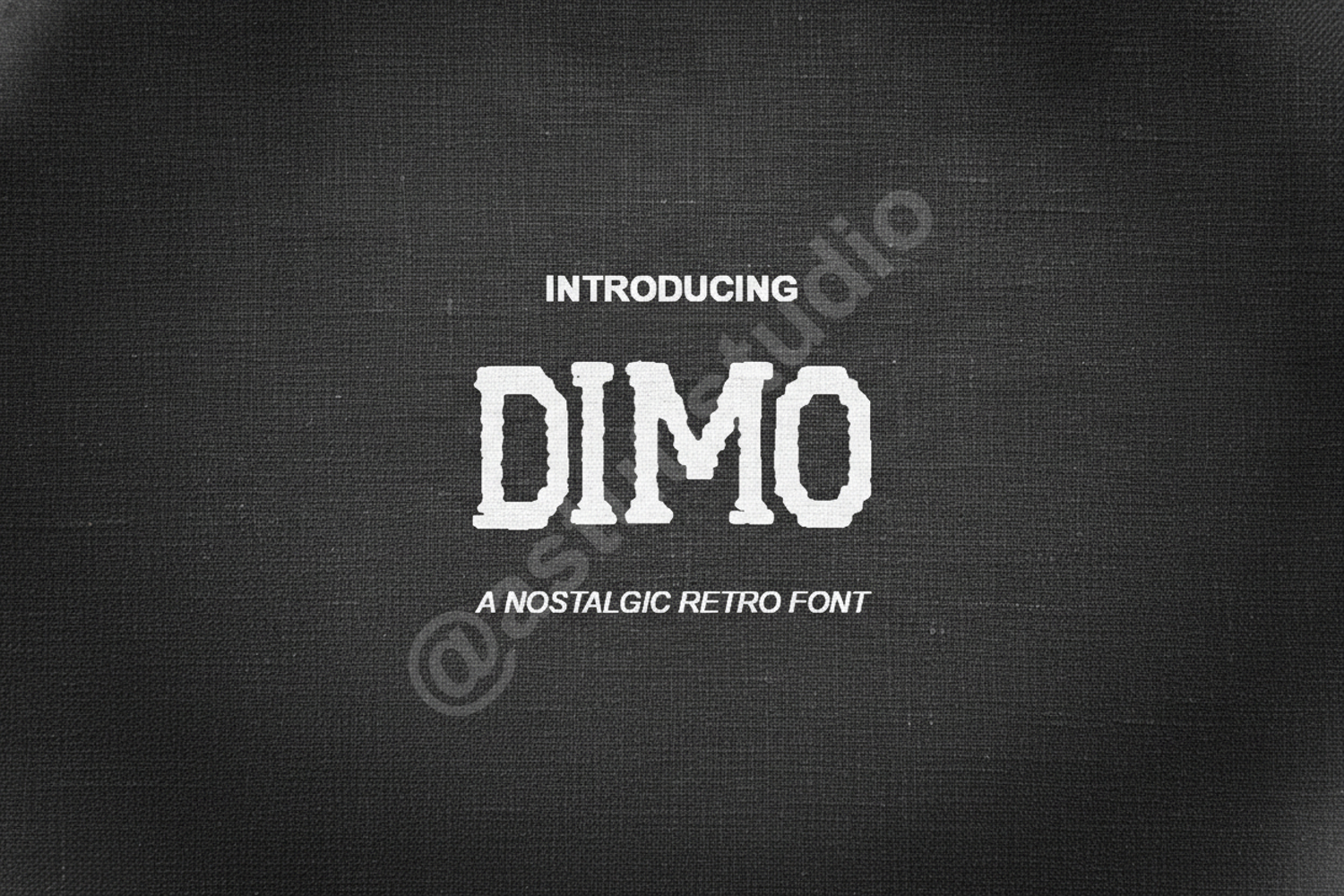
Dimo - Modern Geometric Sans Serif
Dimo
Dimo is a premium geometric sans serif font designed for clarity, impact, and modern aesthetics. With its clean lines and balanced proportions, Dimo offers a professional look that bridges the gap between contemporary minimalism and functional design. Whether you are building a high-end brand or crafting a sleek user interface, Dimo provides the versatility needed to stand out in a crowded market.
- Full set of uppercase and lowercase letters
- Comprehensive numerals and punctuation
- Extensive multilingual support
- Branding and Identity: Create memorable logos and cohesive corporate identities.
- Editorial Design: Perfect for high-end magazine layouts, headlines, and subheadings.
- Digital Marketing: Enhance social media graphics, ad banners, and website headers.
- Print Media: Ideal for posters, business cards, and sophisticated stationery.
- Product Packaging: Add a clean, modern touch to labels and luxury packaging.